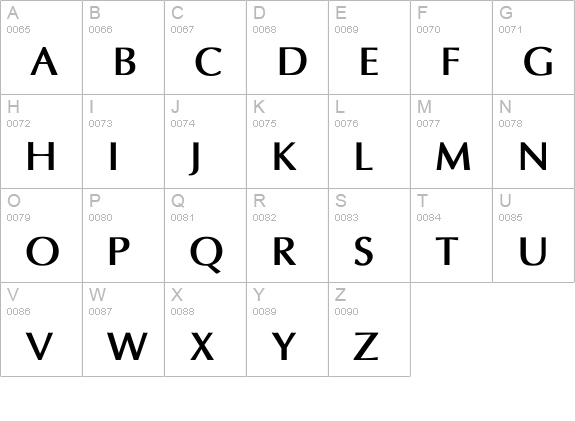
Eppley Bold is a strong, high-contrast variant in the Eppley typeface family \xE2\x80\x94 well suited to headlines, attention-grabbing titles, and strong calls-to-action.
Eppley Bold is a striking and modern typeface that exudes confidence and sophistication. With its bold and impactful design, this font is perfect for making a statement in your projects. The strong, clean lines of Eppley Bold make it ideal for headlines, logos, and branding materials that demand attention. What sets Eppley Bold apart is not only its boldness, but also its versatility. Whether you're designing a sleek website, eye-catching posters, or professional business cards, this font will elevate your designs to the next level. Best of all, Eppley Bold is available for free download at FontsMarket.com. This means you can add this stylish font to your collection without any cost, making it a valuable resource for all your design needs. Don't miss out on the opportunity to enhance your projects with the bold and impactful Eppley Bold font today!